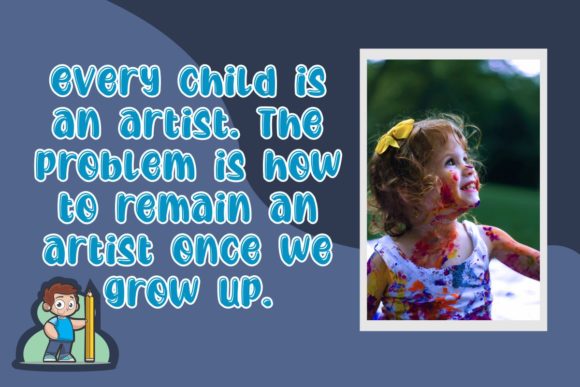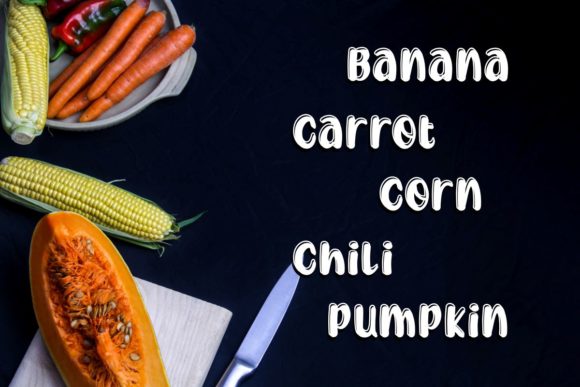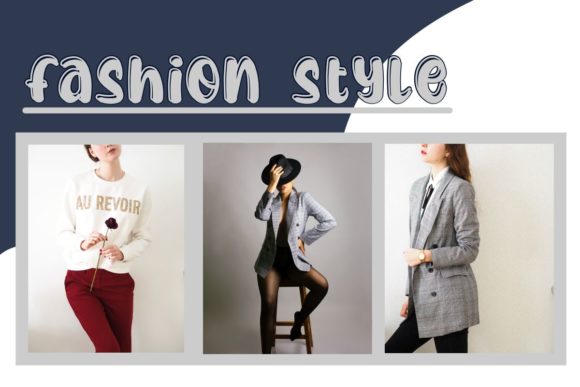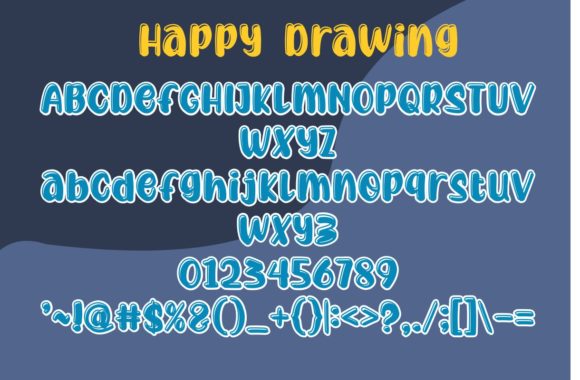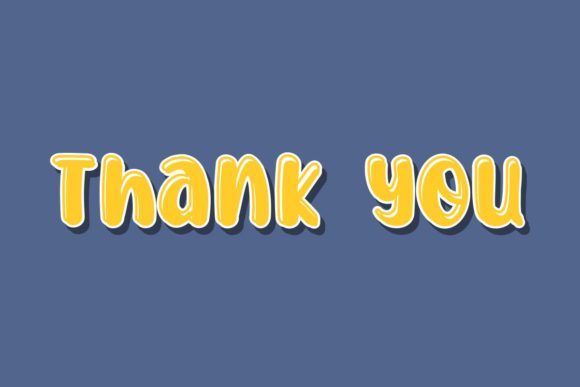
Introduction to Happy Drawing Font
Happy Drawing is a sweet and friendly display font.
Its cute style makes it incredibly fitting to a large pool of designs The only limit is your imagination.
Key Features of Happy Drawing Font
Why Choose Happy Drawing Font?
Happy Drawing Font offers exceptional quality and versatility, making it a valuable addition to your design toolkit. Whether you’re creating for personal projects or commercial use, Happy Drawing Font delivers professional results.